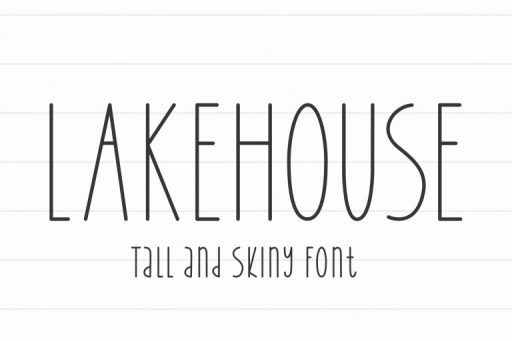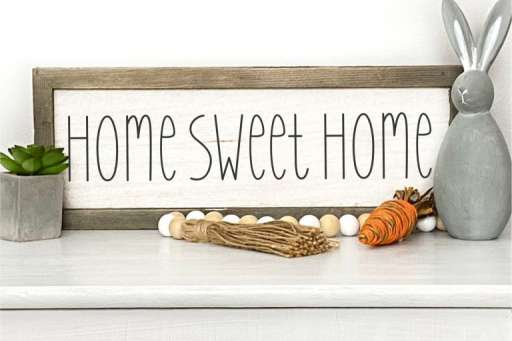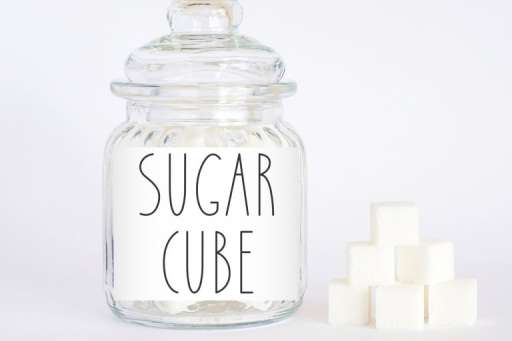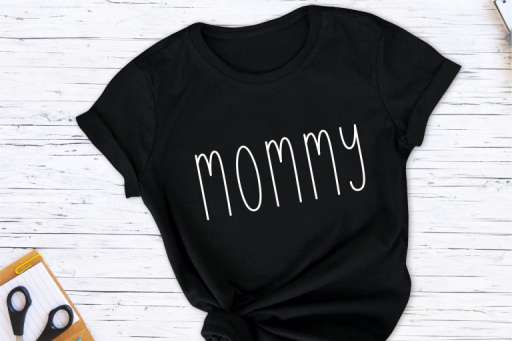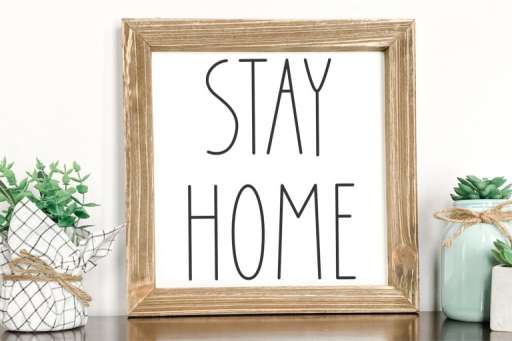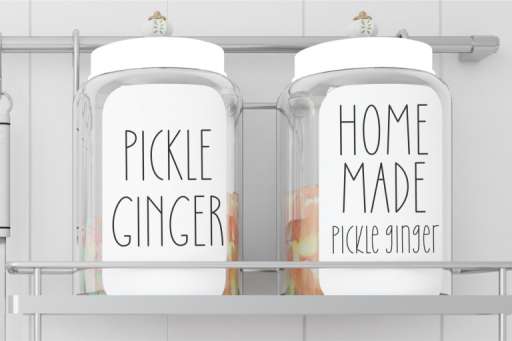
Lakehouse Font – Rae Dunn Farmhouse Font Jimtype Studio
Lakehouse font is perfect for signs! This font includes uppercase, lowercase, number, and punctuation. Lakehouse is a tall and skinny font. Check out our other farmhouse-style fonts that pair perfectly with this one!
- Basic Latin A-Z and a-z
- Numbers and punctuation
- Multilingual Support